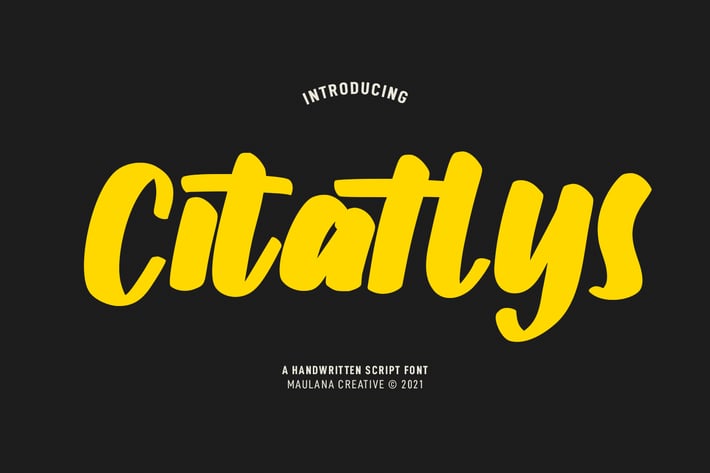
Citatlys Handwritten Script Font
Citatlys is a slanted casual handwritten script font. With bold stroke, fun character with a bit of ligatures. To give you an extra creative work. Citatlys font support multilingual more than 100+ language. This font is good for logo design, Social media, Movie Titles, Books Titles, a short text even a long text letter and good for your secondary text font with sans or serif. Make a stunning work with Citatlys font.